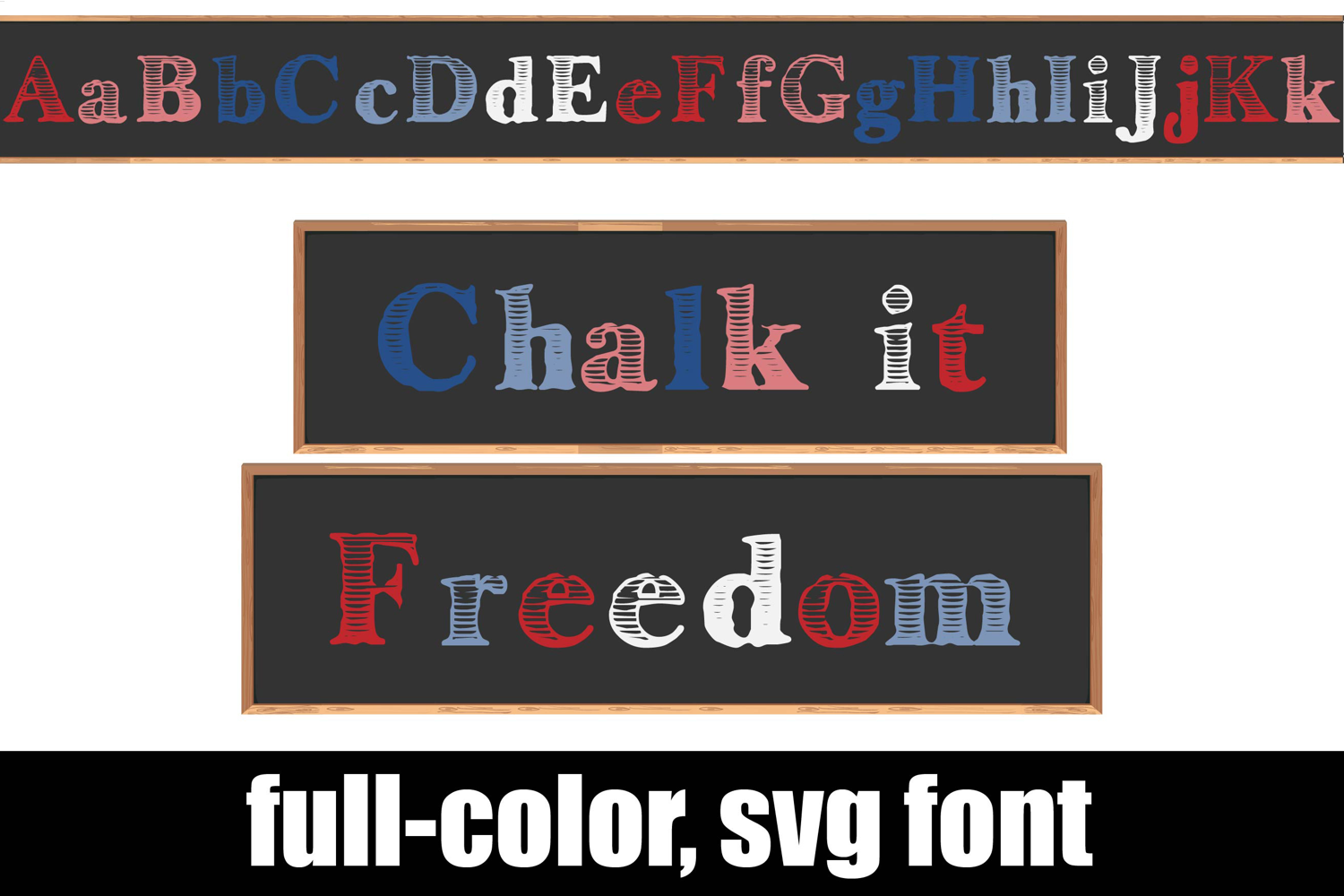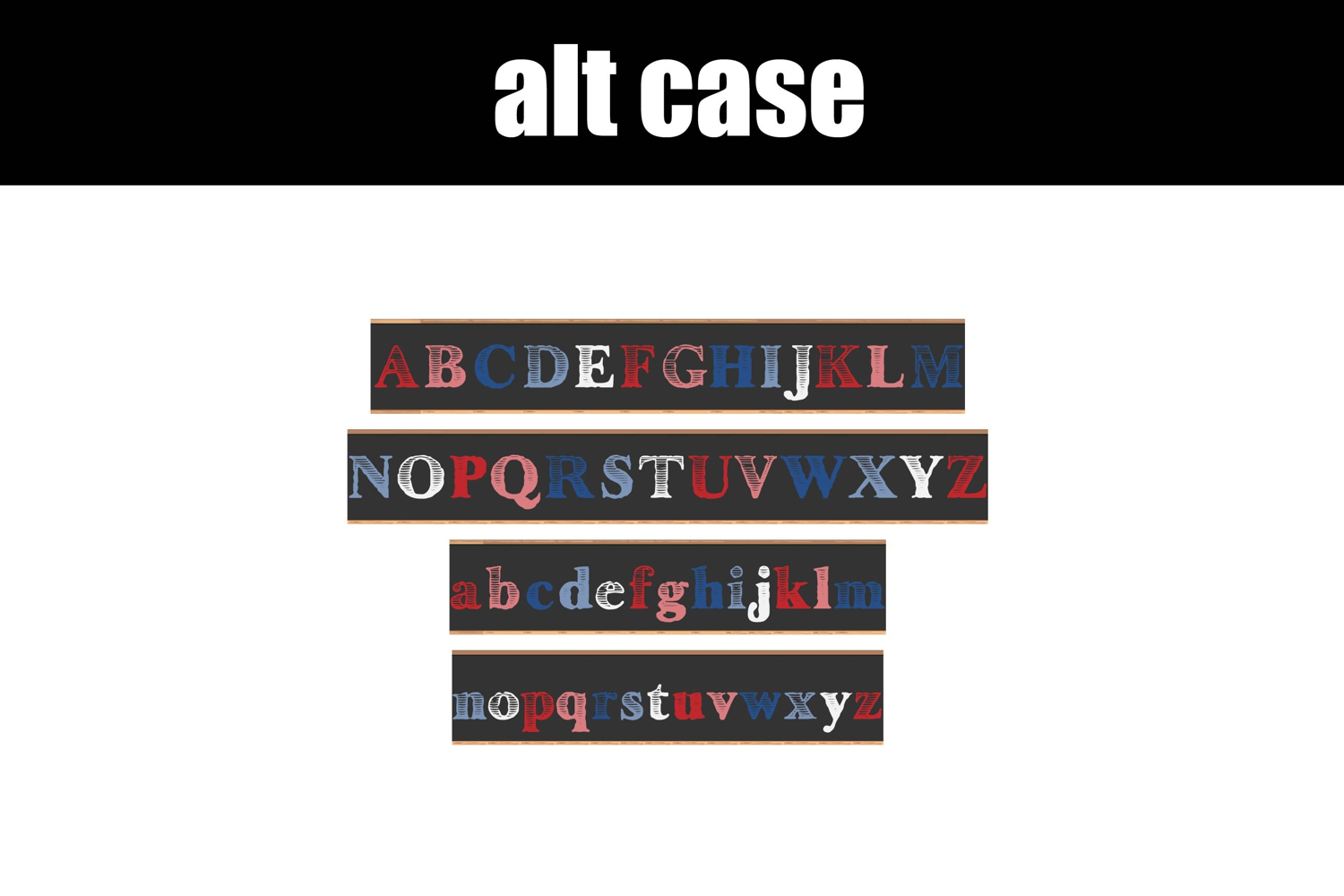
Chalk It Freedom
This full-color font features a fun chalkboard font in patriotic colors. Use the greater than and less than glyphs to create chalkboard ends. There is an alt case of alternate colorings of each letter that you can access through your system or Silhouette's glyph map.